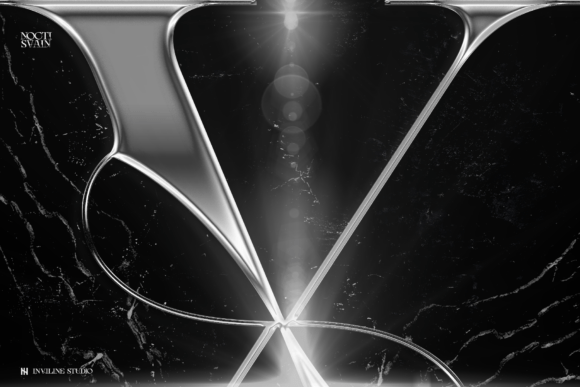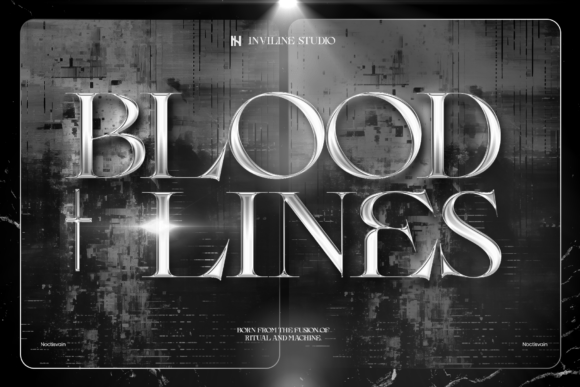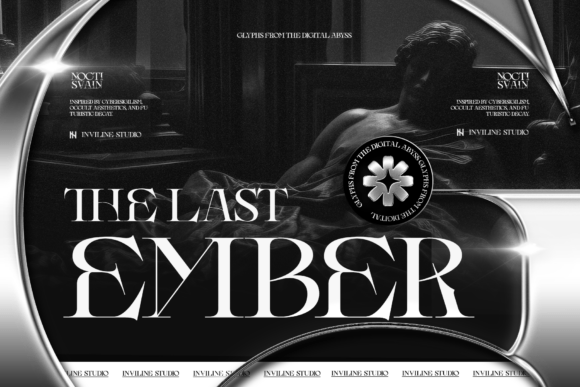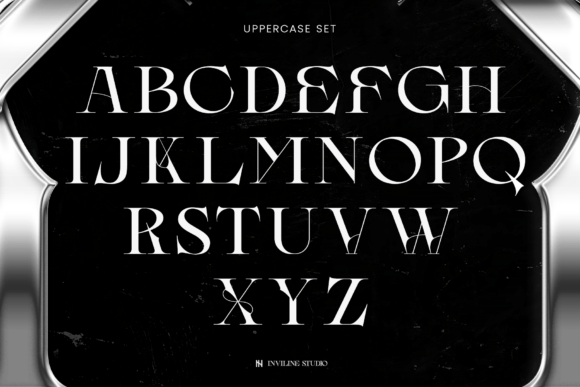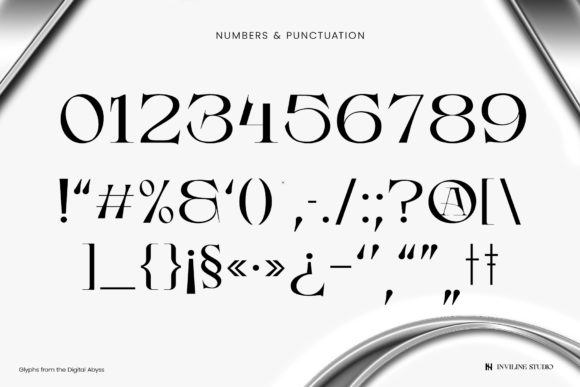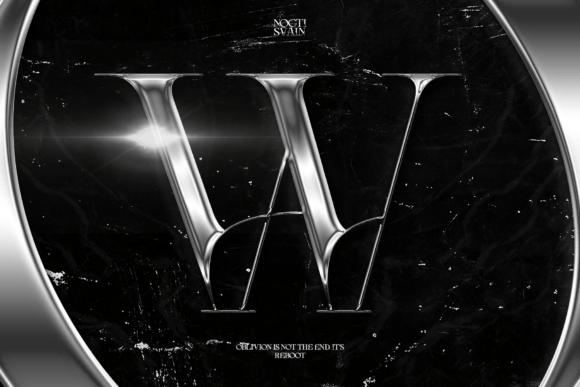
Introduction to Noctisvain Regular Font
Imagine you’re in the middle of a creative project, pouring over ideas and inspiration, but something’s missing. The design isn’t quite hitting the mark, and you can’t quite put your finger on what’s going wrong. That’s where the Noctisvain Regular Font comes in – a game-changing addition to your design arsenal that’s sure to elevate your work and leave a lasting impression.
Designed by the talented team at Inviline Studio, Noctisvain Regular Font is a dramatic high-contrast display serif font that’s equal parts elegant and edgy. With its razor-sharp terminals, haunting curves, and mysterious detailing, this typeface is perfect for designers looking to add a touch of sophistication and intrigue to their work.
Key Features of Noctisvain Regular Font
- A unique, modern aesthetic that adds a touch of sophistication to any creative project.
Honest Review: Noctisvain Regular Font
I recently came across the Noctisvain Regular Font and was pleasantly surprised by its high quality and unique design. As a designer, I appreciate fonts that can elevate a creative project and provide a fresh perspective. The Noctisvain Regular Font is definitely a great addition to any design resource collection.
- ✨ High-quality design with a modern and elegant feel
- ⚠️ Limited character set, which may be a concern for designers working on complex projects
- ⚠️ Not suitable for small font sizes, as it may become difficult to read
Overall, I’m impressed with the Noctisvain Regular Font. While it may have some limitations, its unique design and high quality make it a great addition to any designer’s toolkit. I’d definitely recommend it for creative projects that require a modern and elegant feel.
Tips for Getting the Most Out of Noctisvain Regular Font
To get the most out of the Noctisvain Regular Font, use it for titles and headings in your design project. This font is perfect for creating a professional and modern look. You can also use it in combination with other fonts to create a unique and creative design.
Noctisvain Regular Font is commonly used in design projects such as brochures, posters, business cards, and social media graphics. It is also used in digital products such as ebooks, infographics, and presentations.